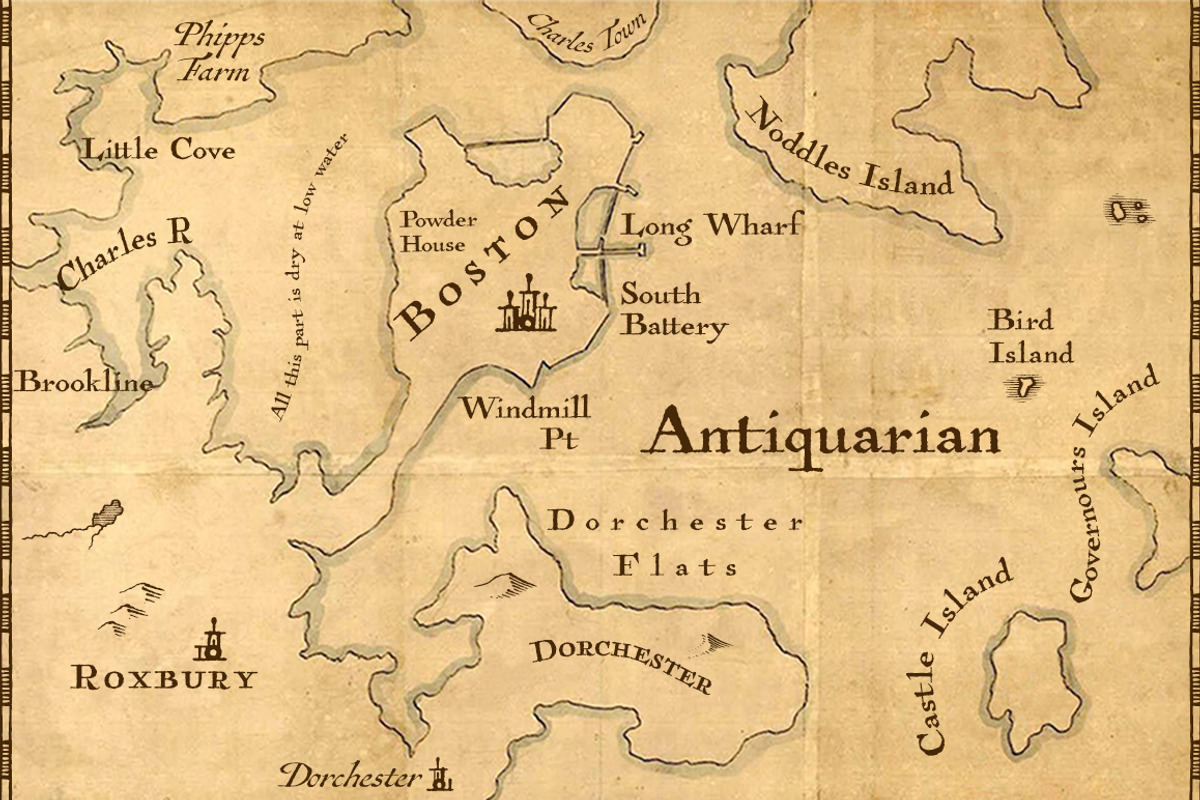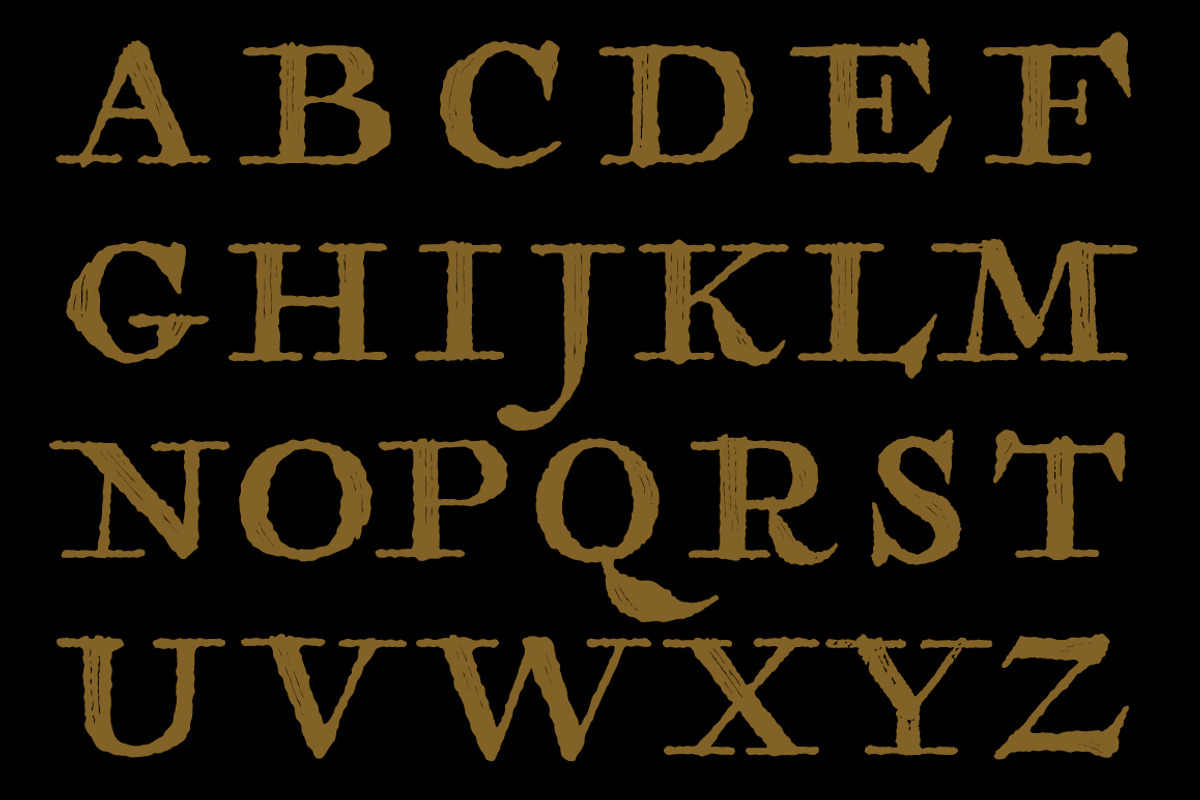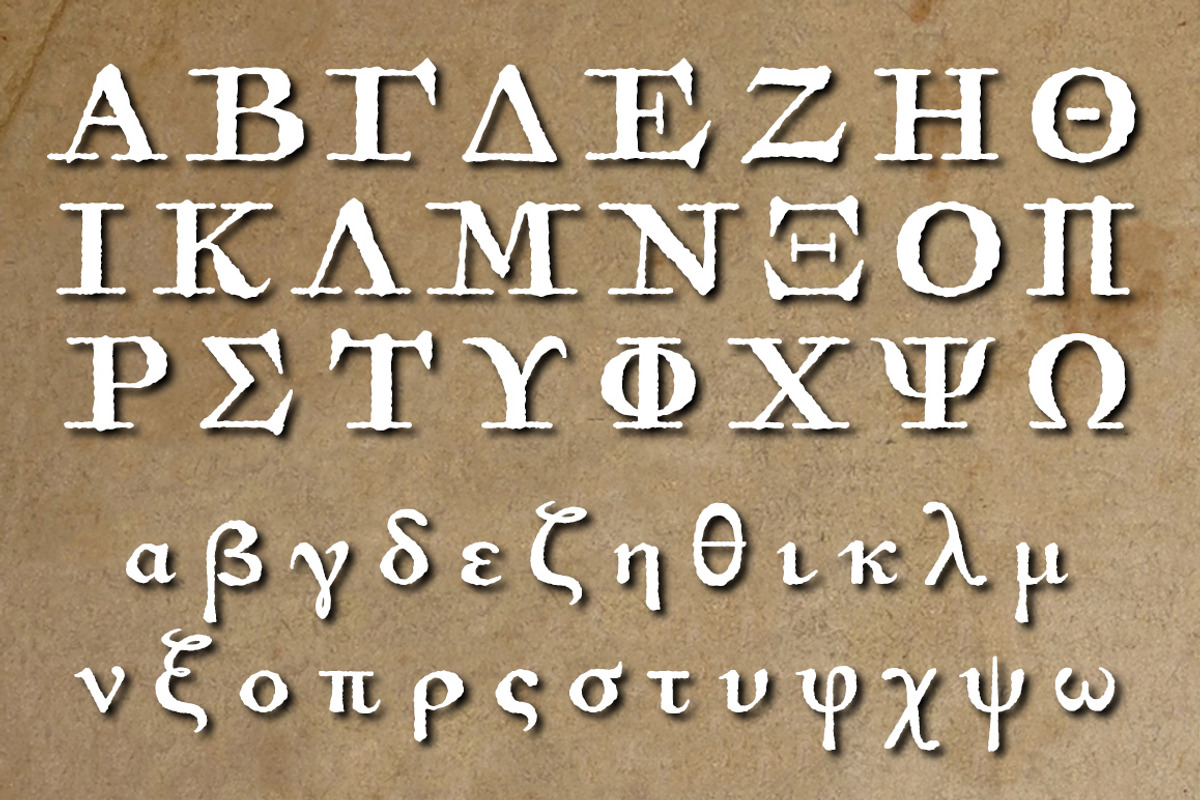
Antiquarian, an 18th-century map font
- The font has more than 1,000 glyphs, including true small caps, many historical ligatures, both lining and old-style figures, and alternate